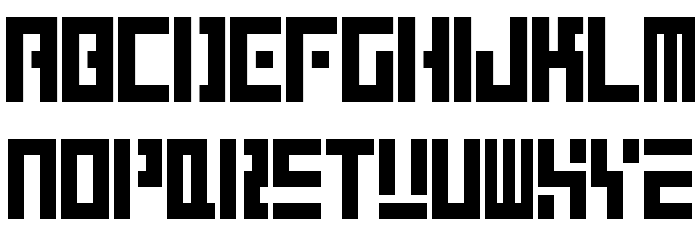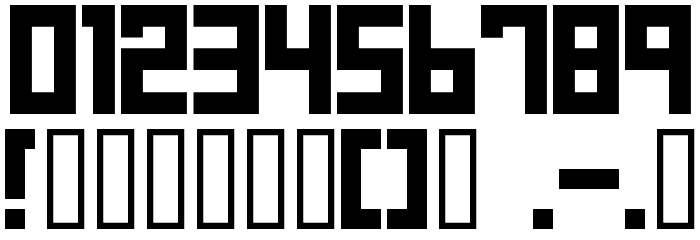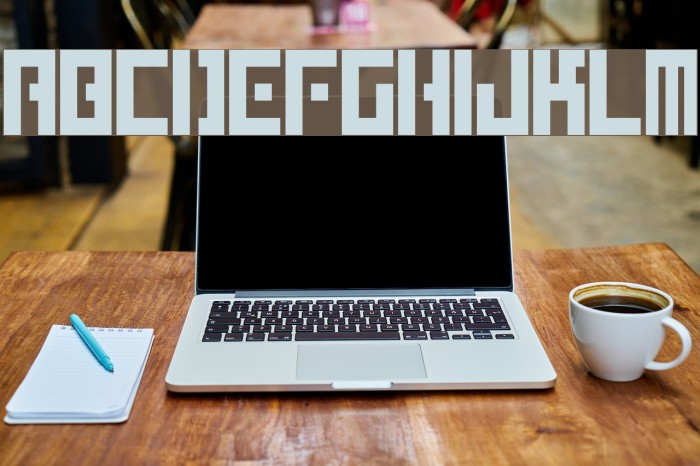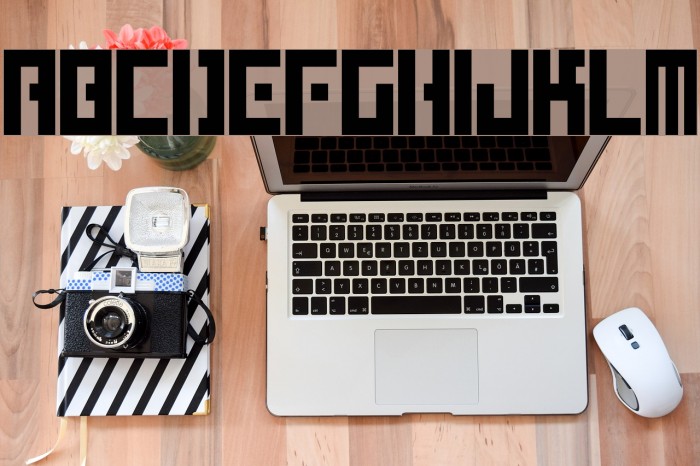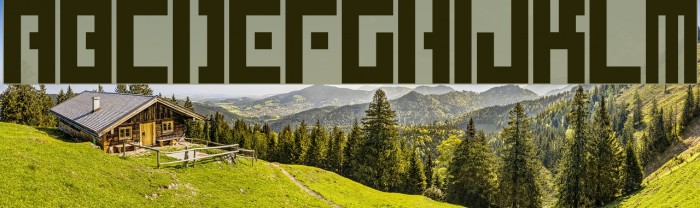
KoukakuE Font
This font features a bold, geometric design with a futuristic and digital aesthetic. Each character is constructed with sharp angles and straight lines, creating a blocky and robust appearance. The uppercase and lowercase letters share a similar structure, emphasizing uniformity and consistency. Numbers and special characters maintain the same bold and angular style, ensuring a cohesive look across all elements. The font's design is reminiscent of digital displays or retro video game graphics, making it highly suitable for tech-related themes.
A bold, geometric font with a futuristic, digital aesthetic.
- Proposed Projects: Ideal for tech-themed projects, video game graphics, digital displays, and futuristic branding.
- Overall Style: Futuristic